Brutal Types in Conversation with The Brand Identity
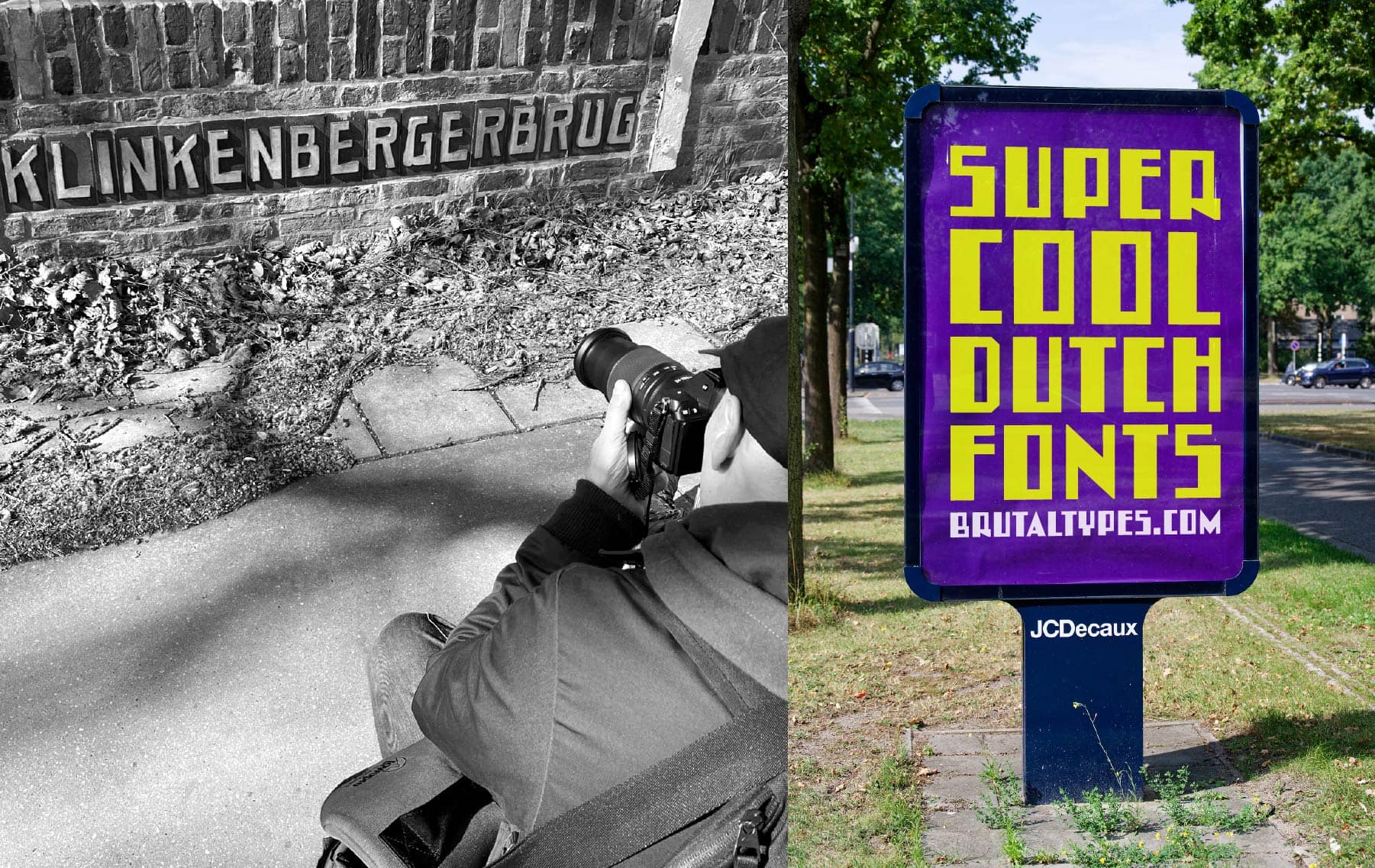
We’re thrilled to share that Brutal Types has been interviewed by The Brand Identity! In this feature, we discuss the ideas and research behind our ongoing project to uncover and revive Europe’s forgotten interwar letterforms. The conversation explores our fascination with vernacular design, the process of translating architectural and sculptural lettering into digital type, and the collaborative work that drives Brutal Types forward.
From Amsterdam School carvings to obscure modernist signage, we talk about how these overlooked fragments of visual culture continue to inspire new typefaces—and how they connect the past to contemporary design practice.